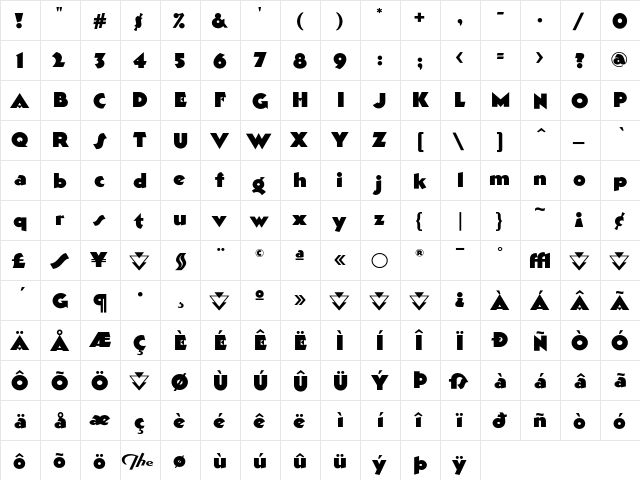
Kobalt Bold Font Preview
Kobalt Bold
Kobalt Bold Font Details
Design Context for Kobalt Typeface
Kobalt is a composed and adaptable typeface that performs quietly and consistently across a wide range of design contexts. The heavy weight commands attention and anchors typographic hierarchies.